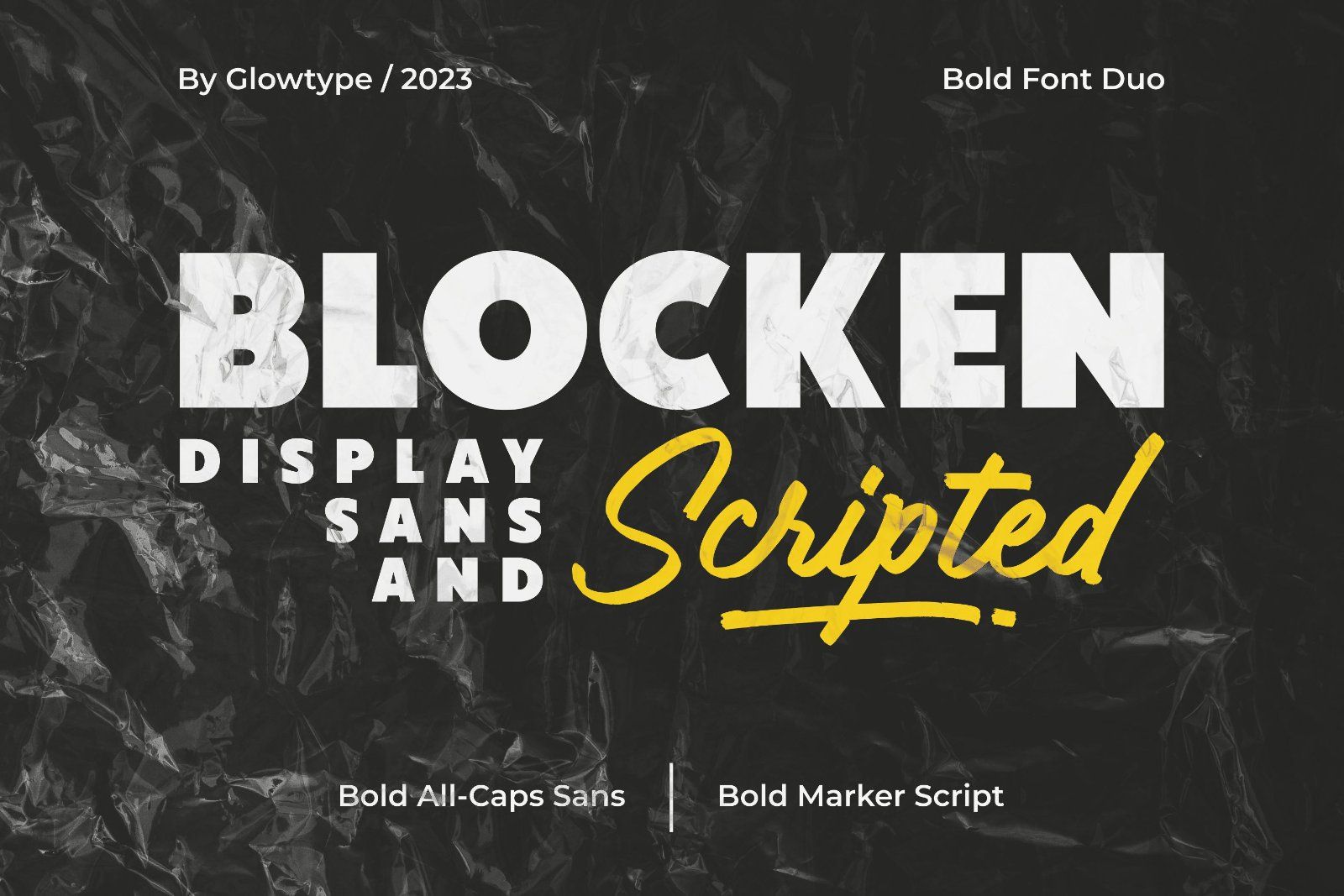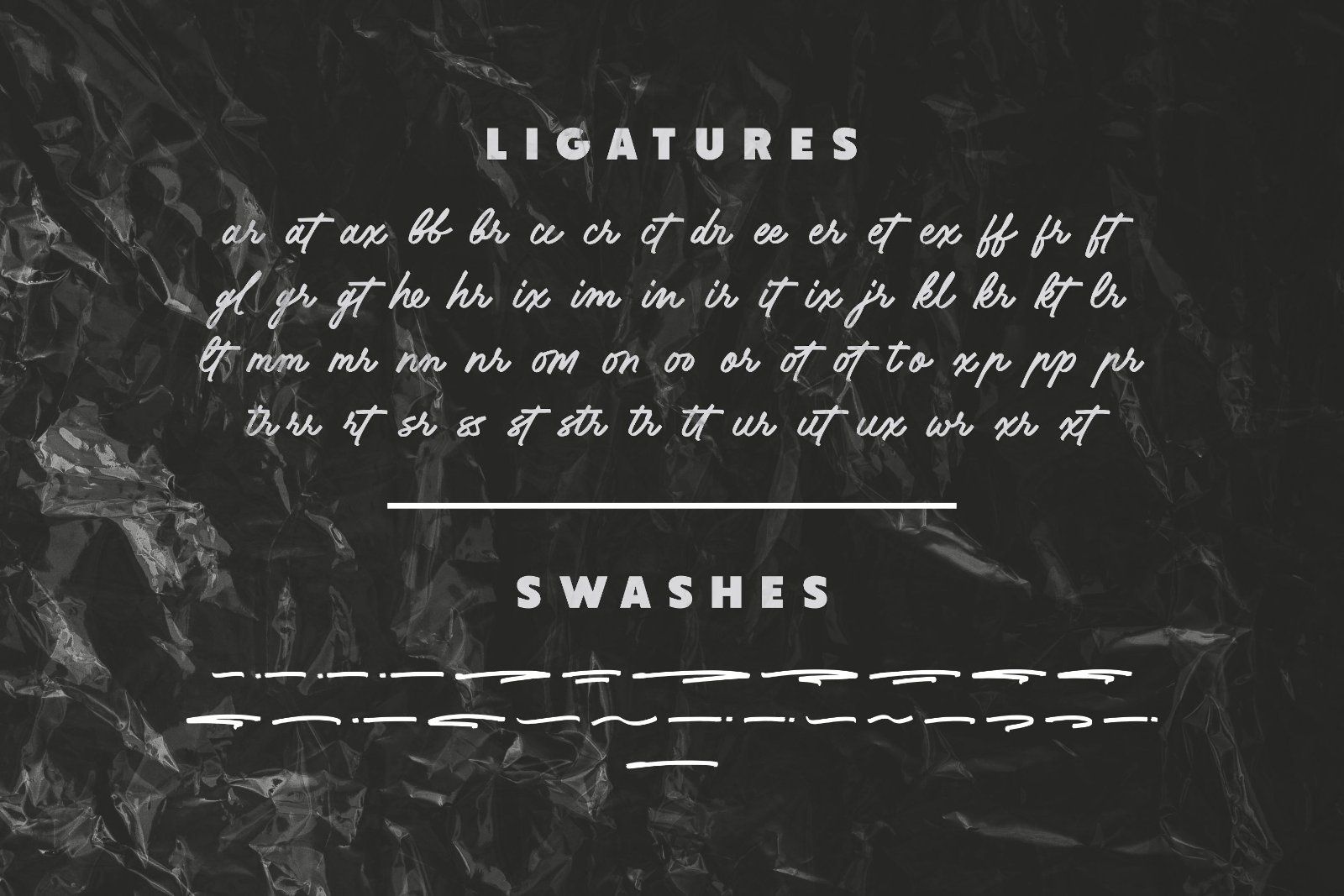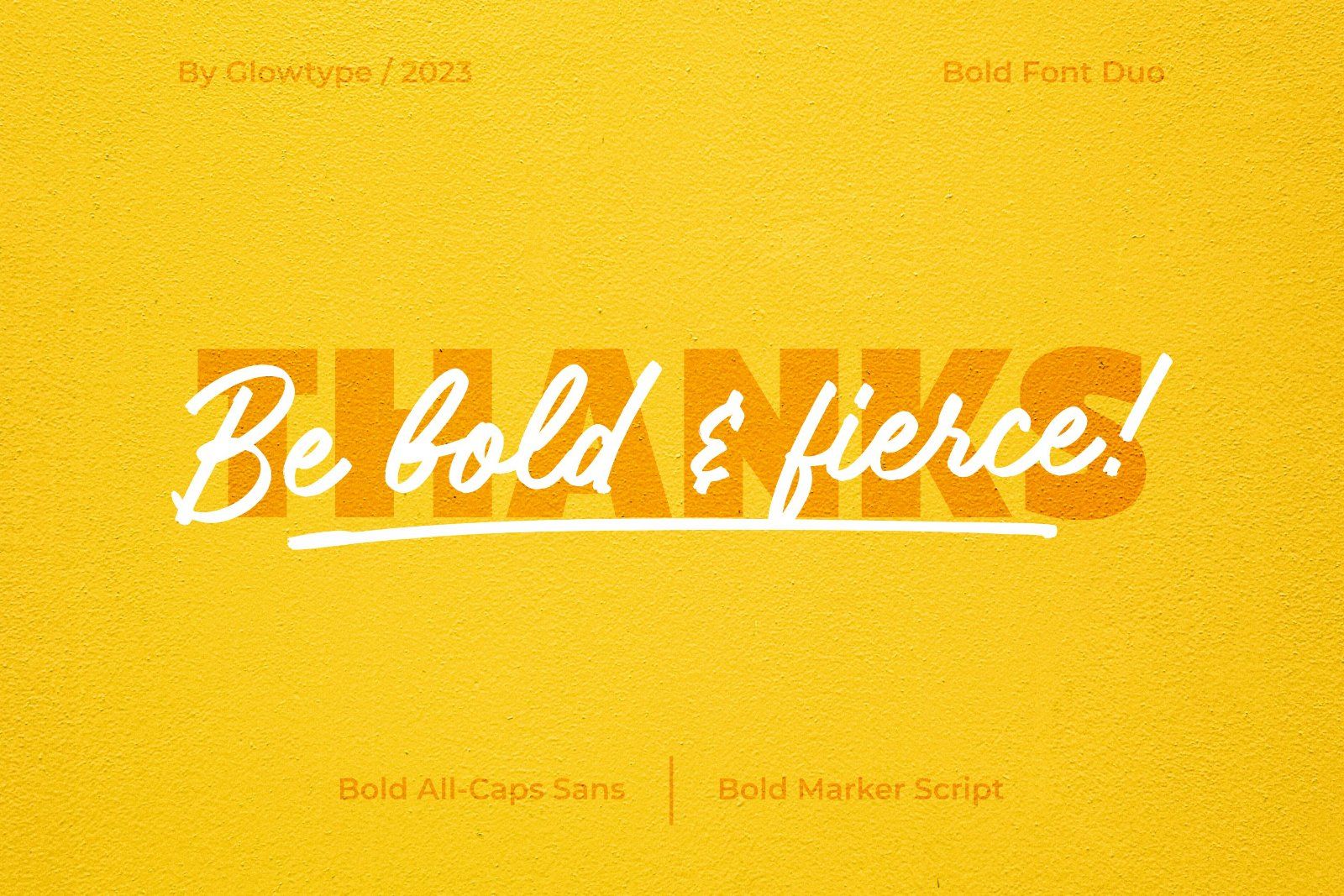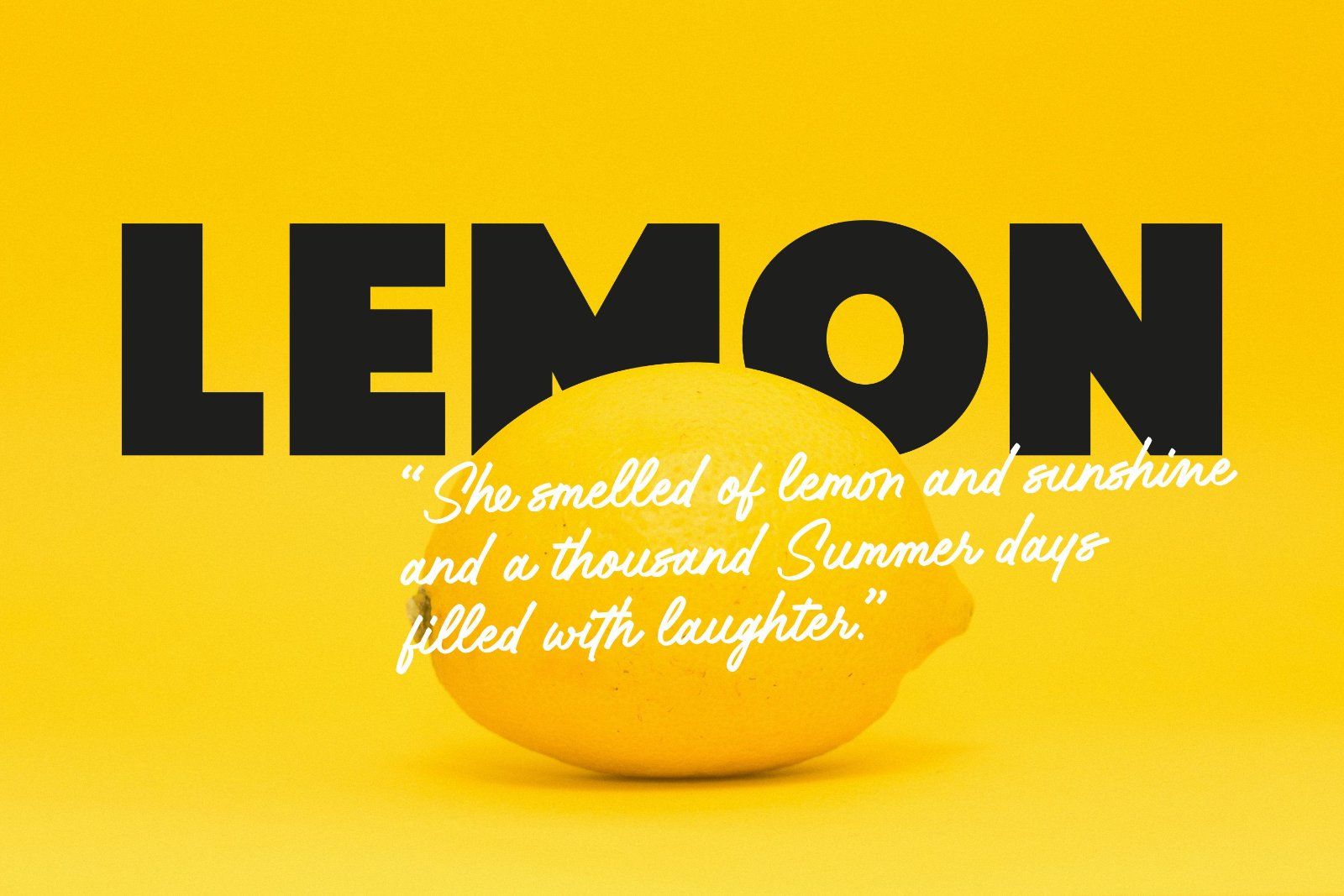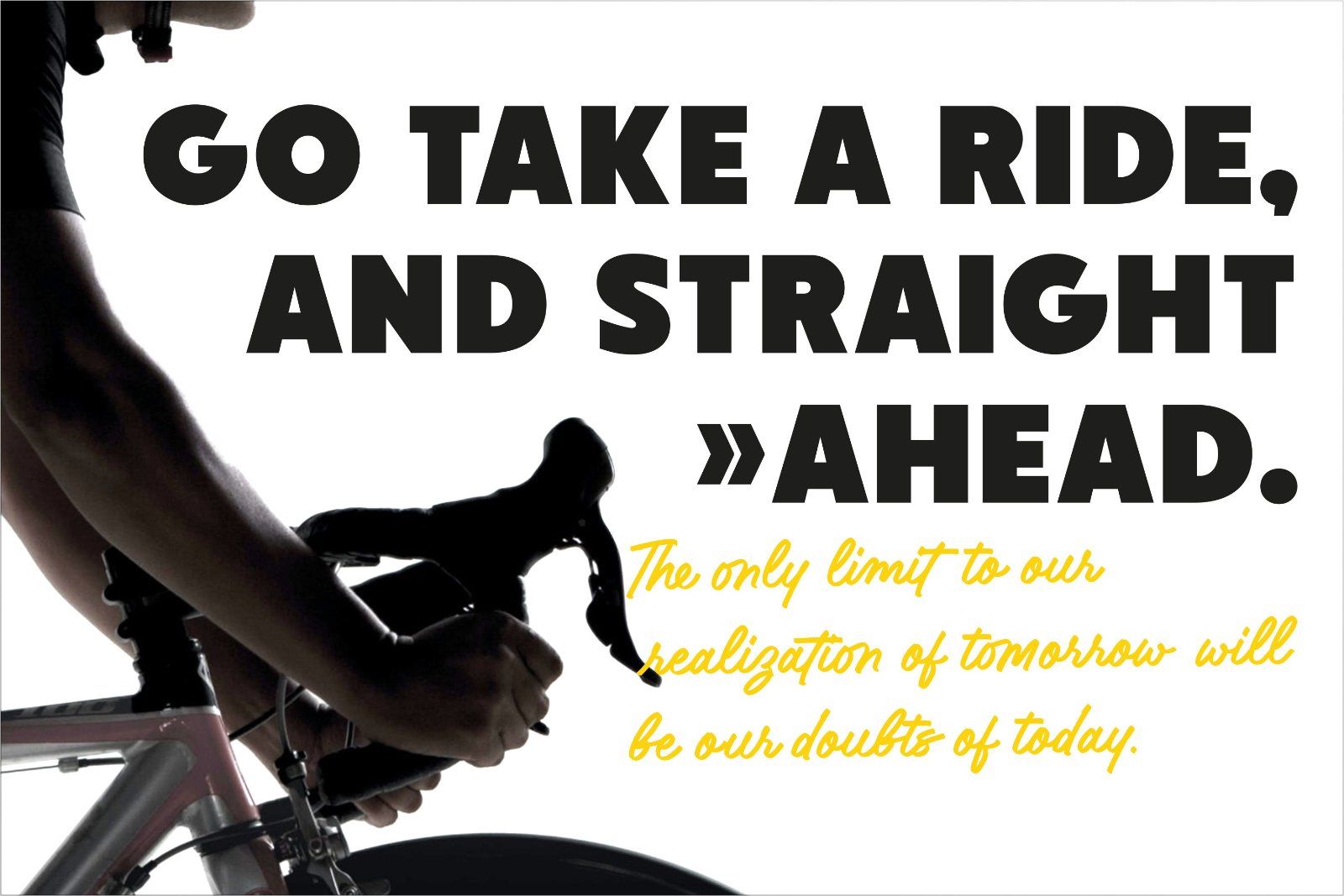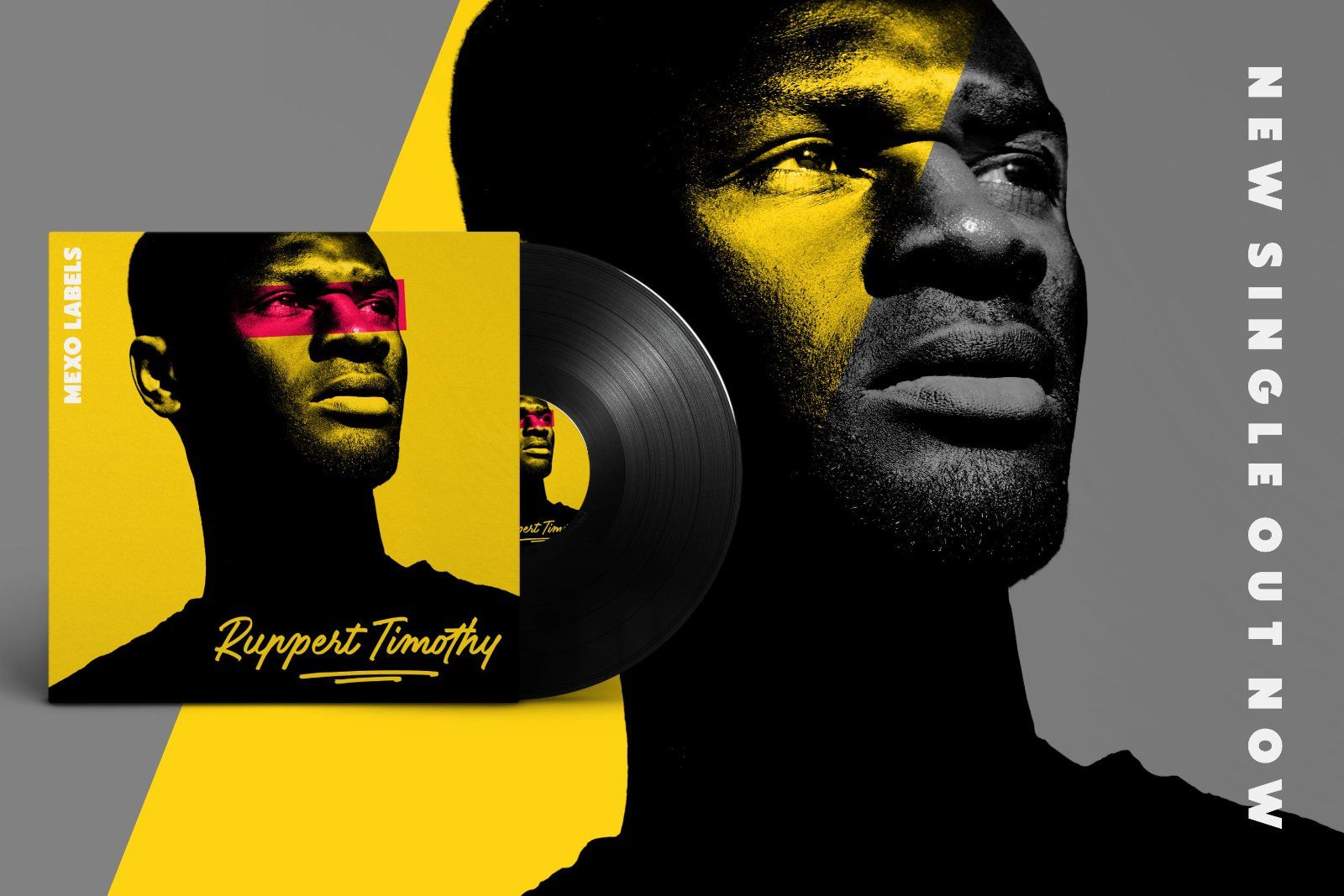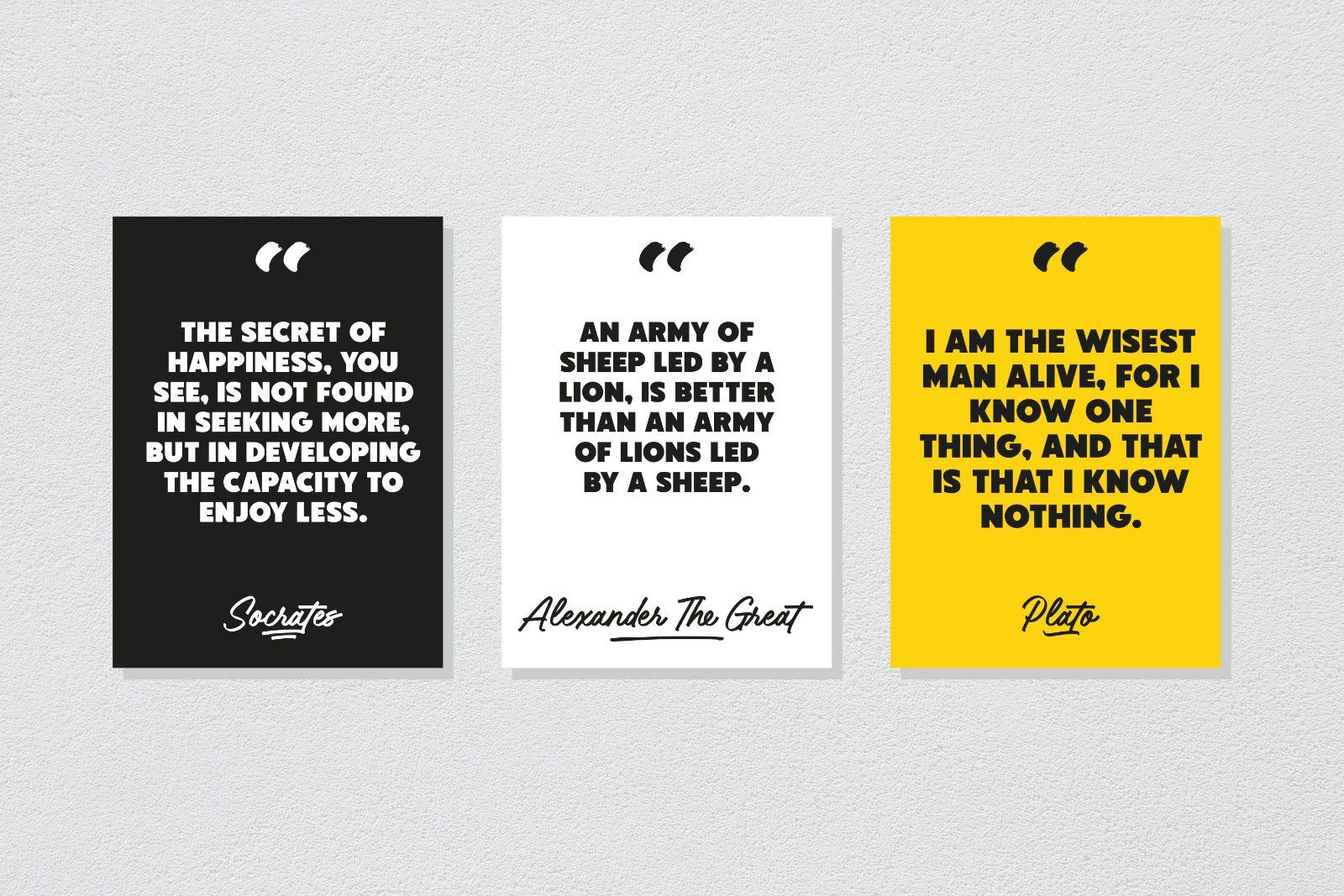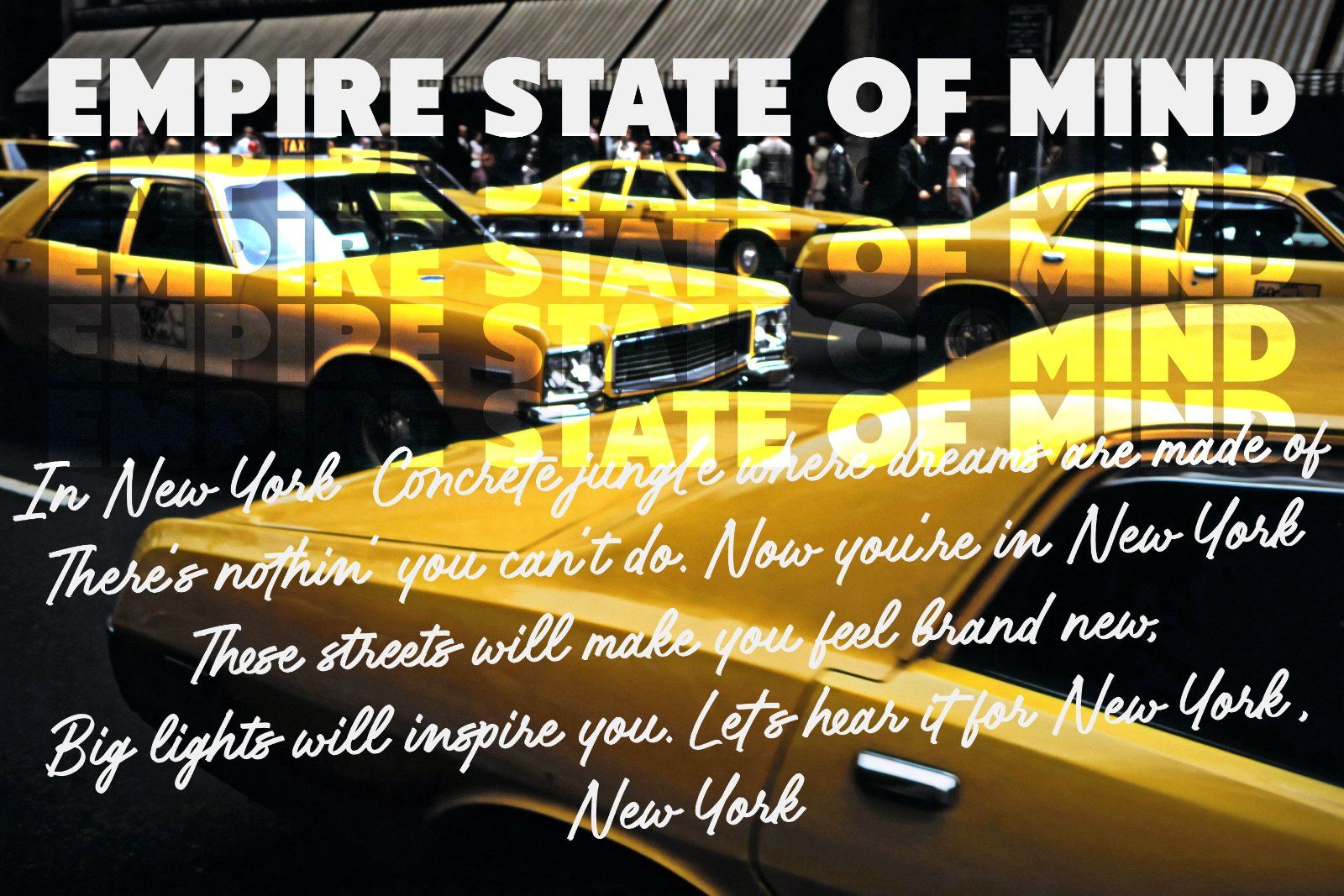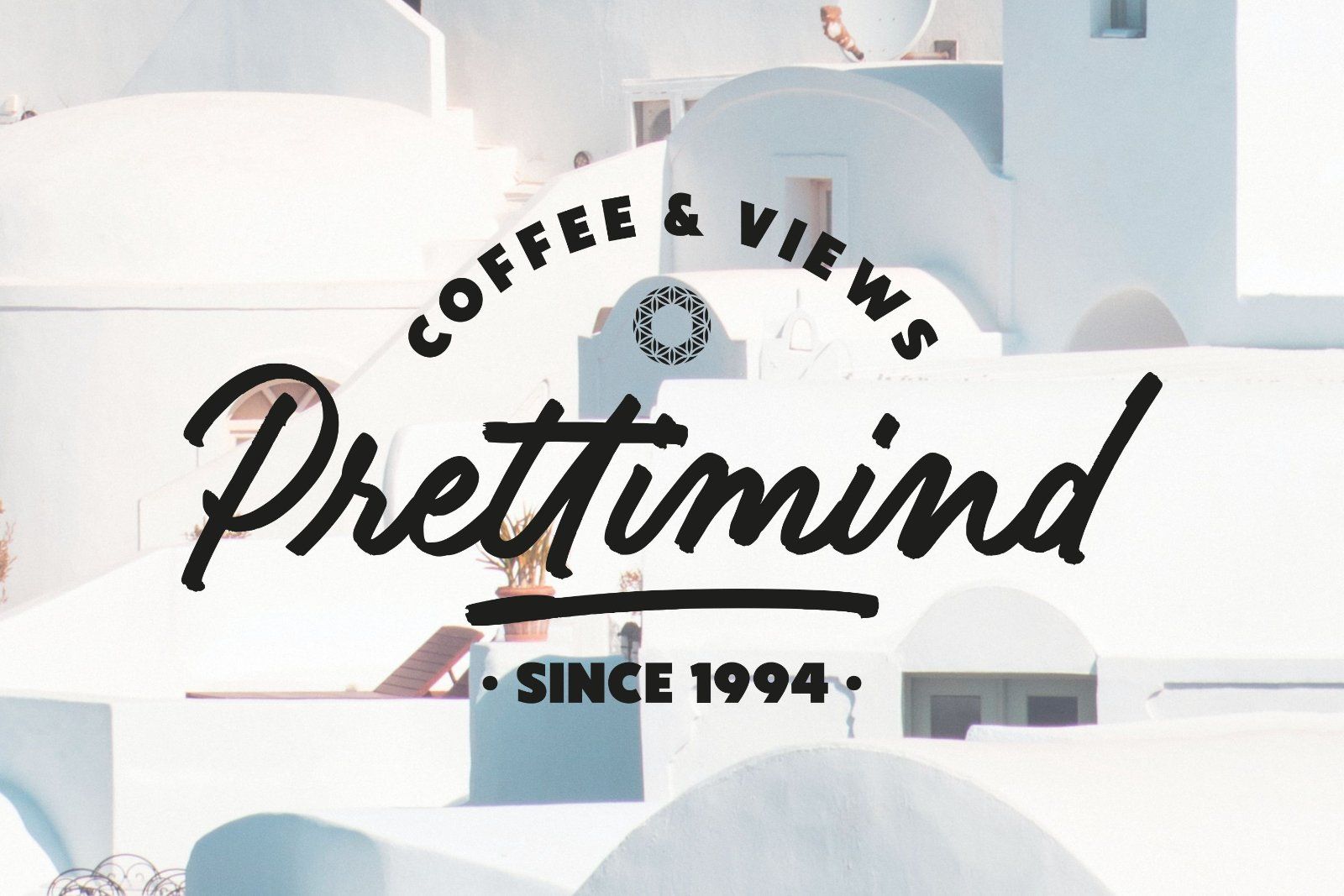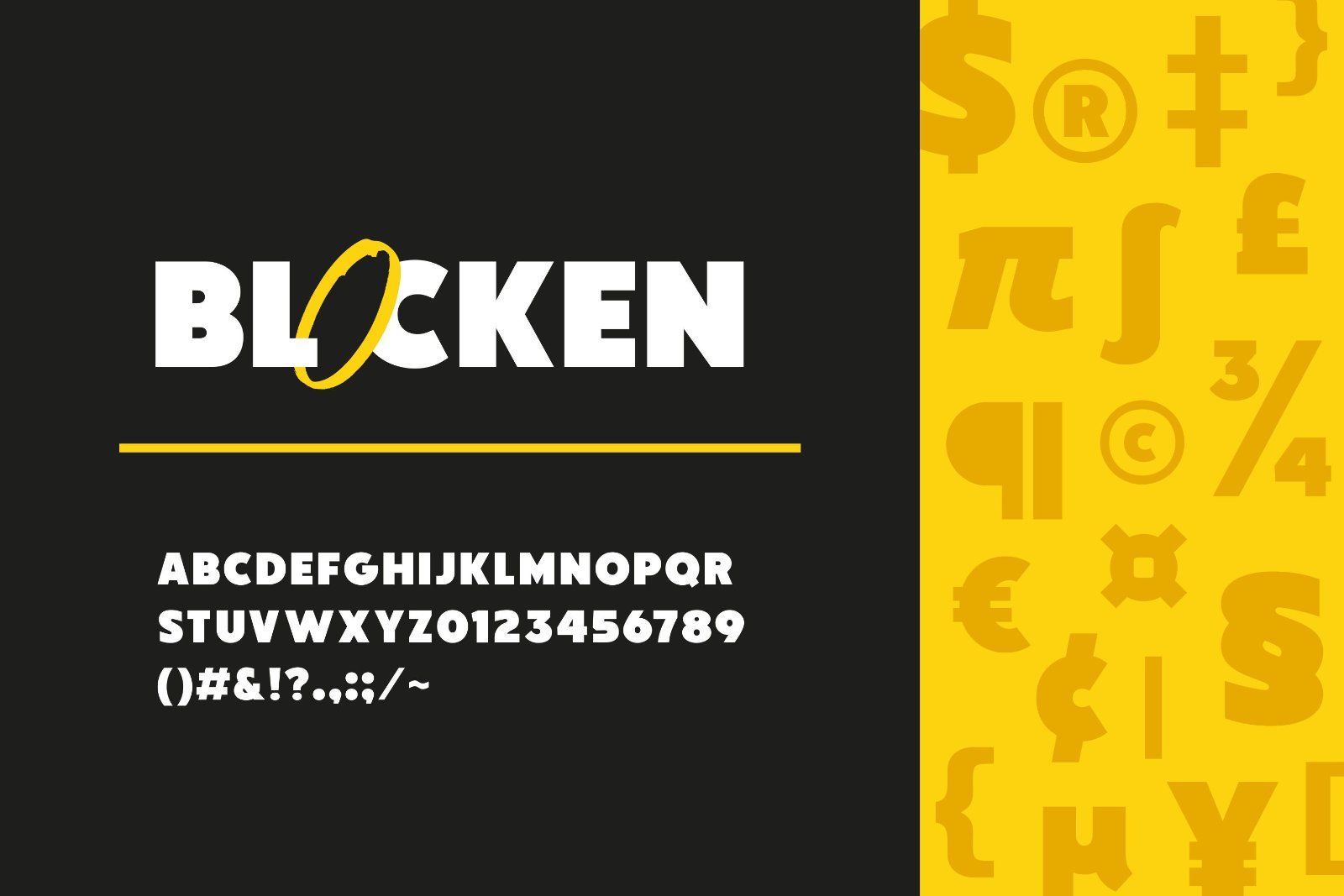
Introducing Blocken the font duo to make your design standout!
Bold and masculine font! Blocken is specifically designed to make a strong impact, whether you're creating headlines or crafting brand messaging. Come with 2 style, bold all caps sans and bold marker script to make it more vibrant!
Whether you're creating marketing materials, designing a website, logo design, packaging, ads, clothing, merch, etc, Blocken is the perfect choice.